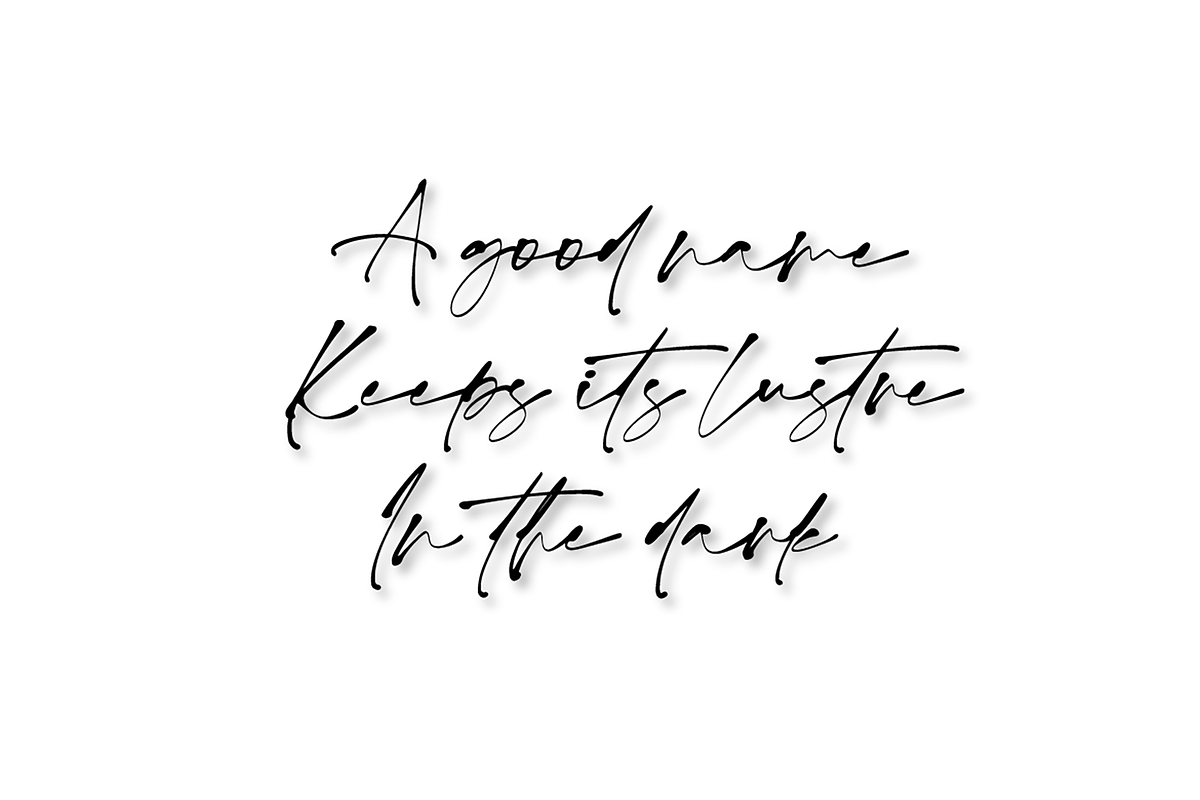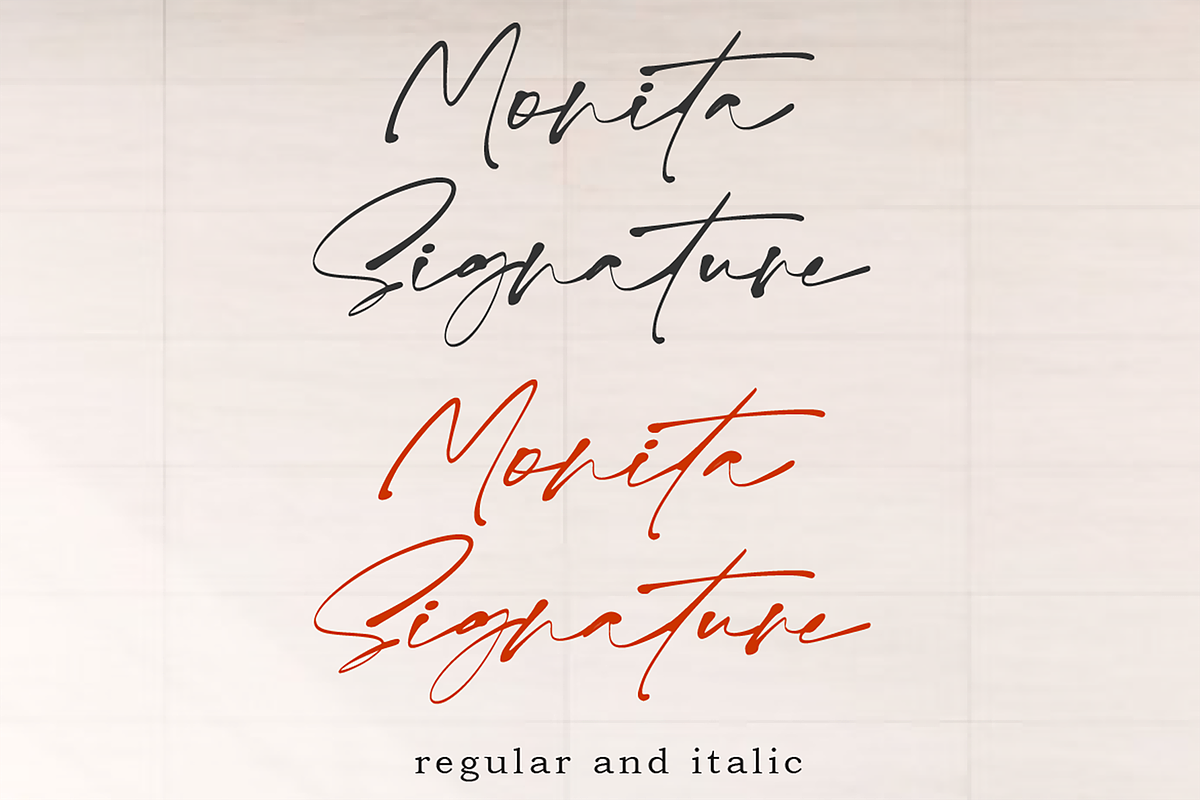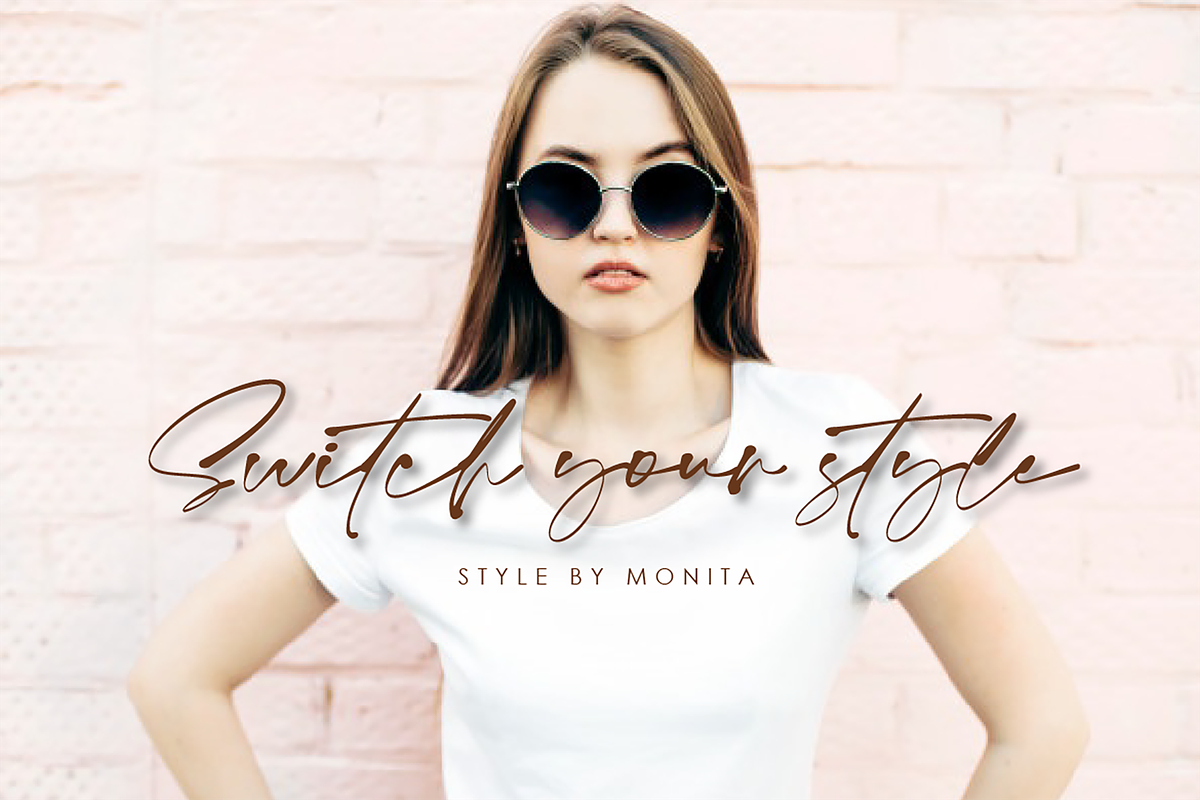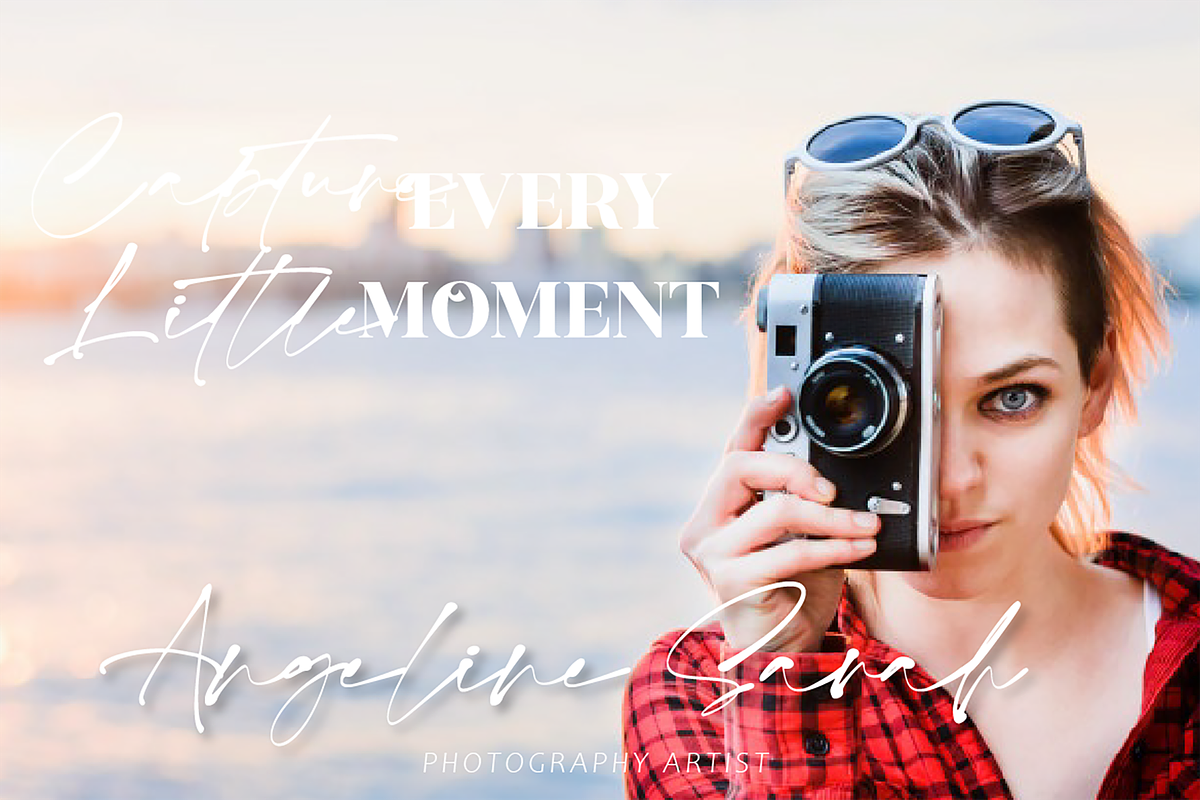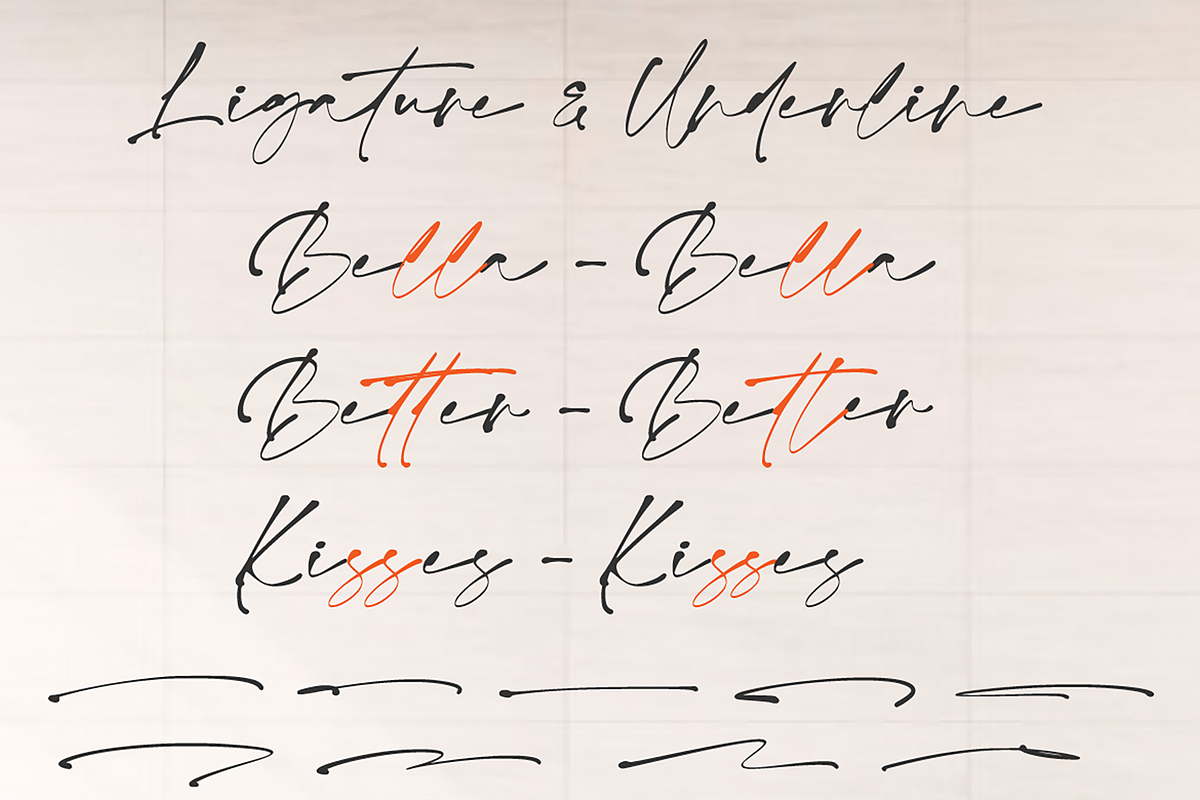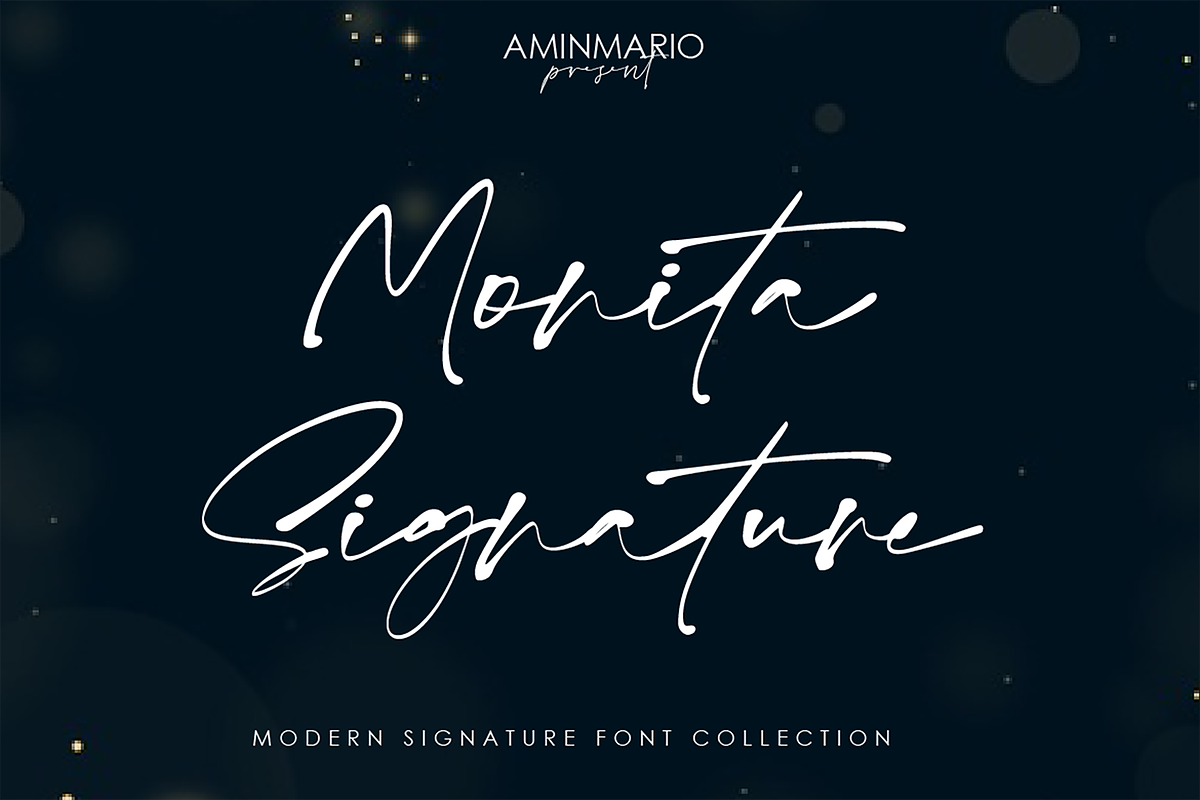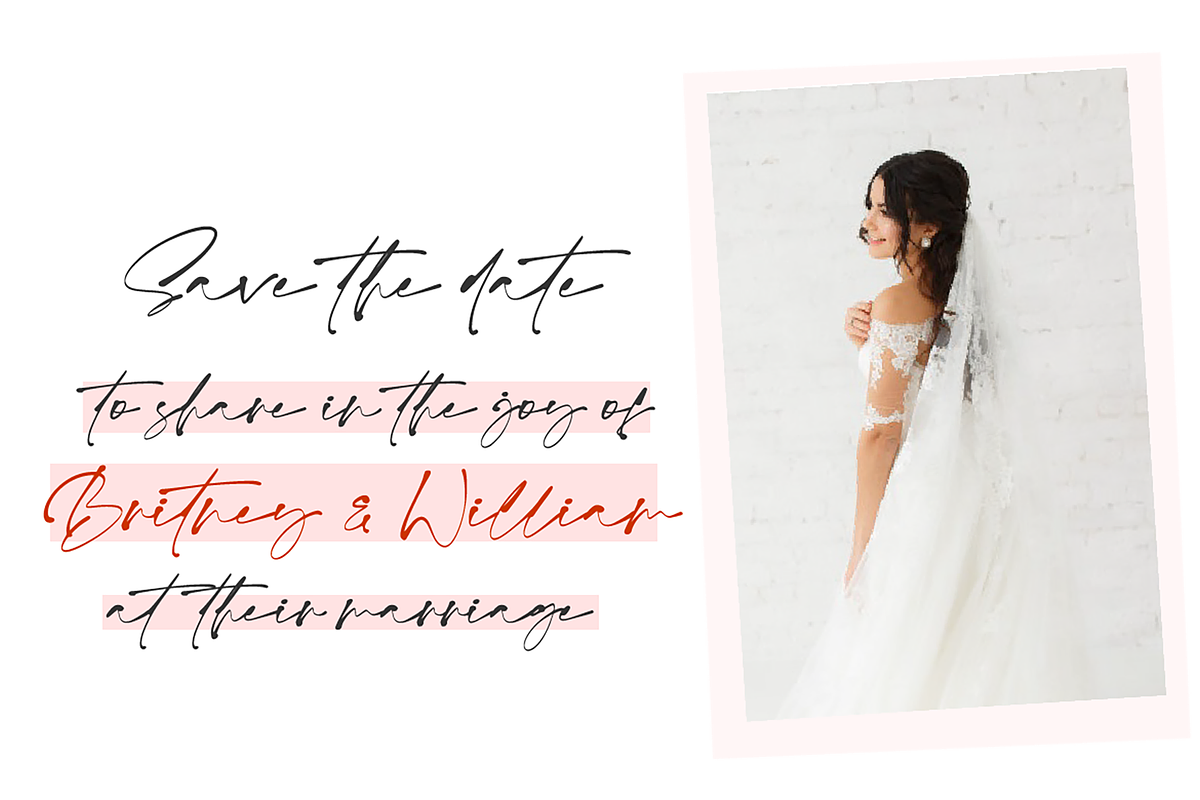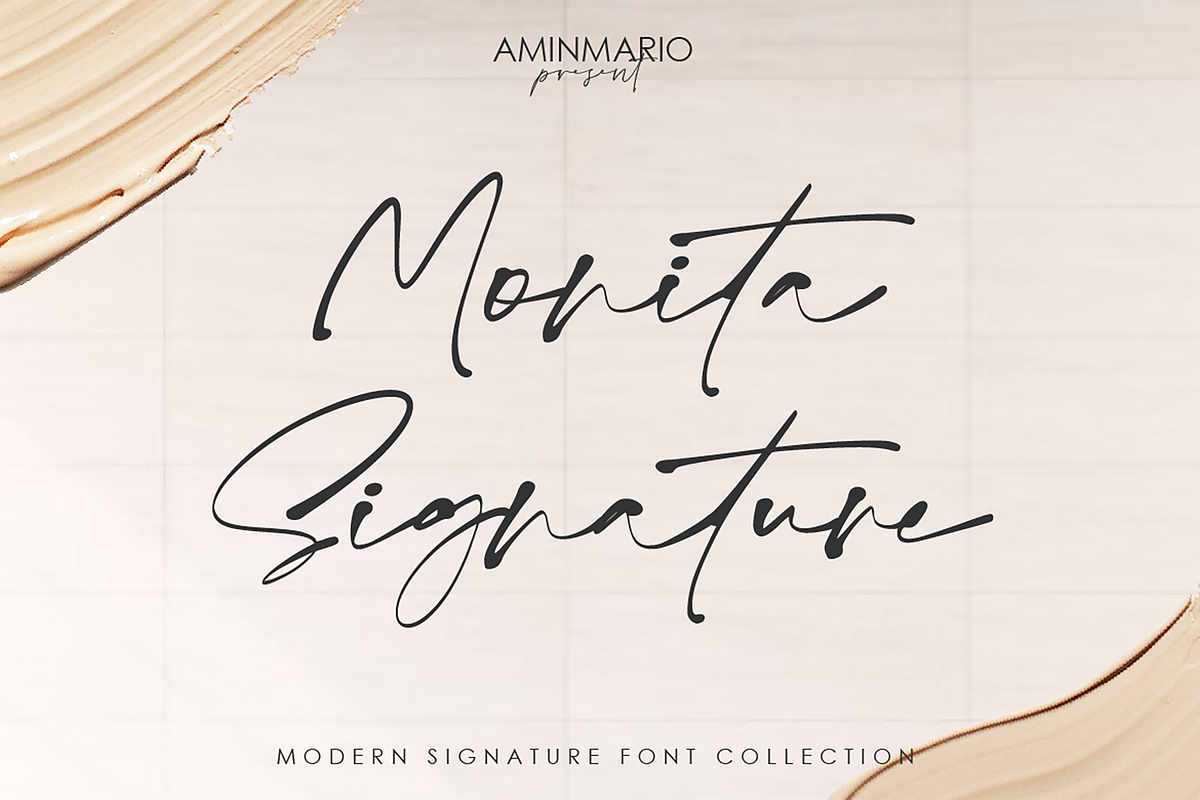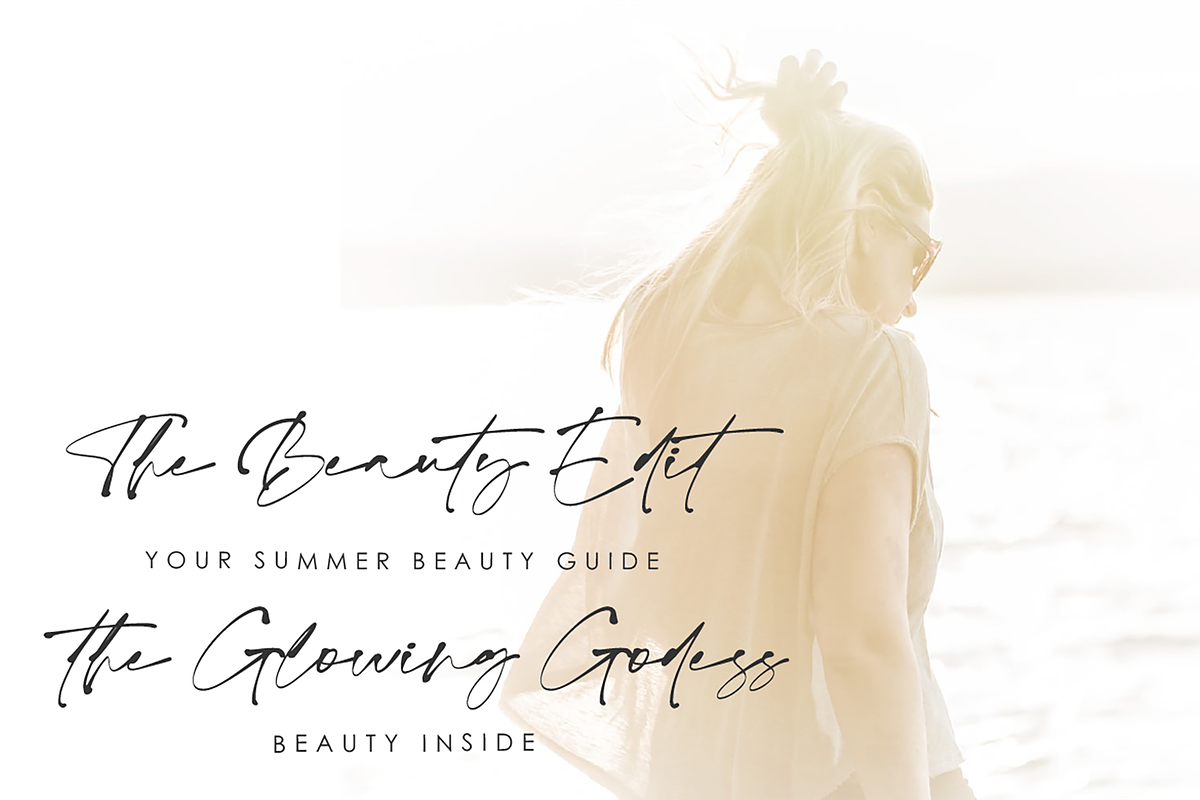
Monita Signature
Monita Signature font is a classy and elegant script. This font was created to look as close to a natural handwritten script, as possible by including some lowercase alternates, ligature and underlines. Comes with regular and italic. Perfect for any awesome projects that need hand writing taste.
This is suitable for logos, watermarks on photography, signatures, branding, advertisement, quotes, invitations, stationery, wedding design,album covers, business cards, clothing, magazines, posters, and more!